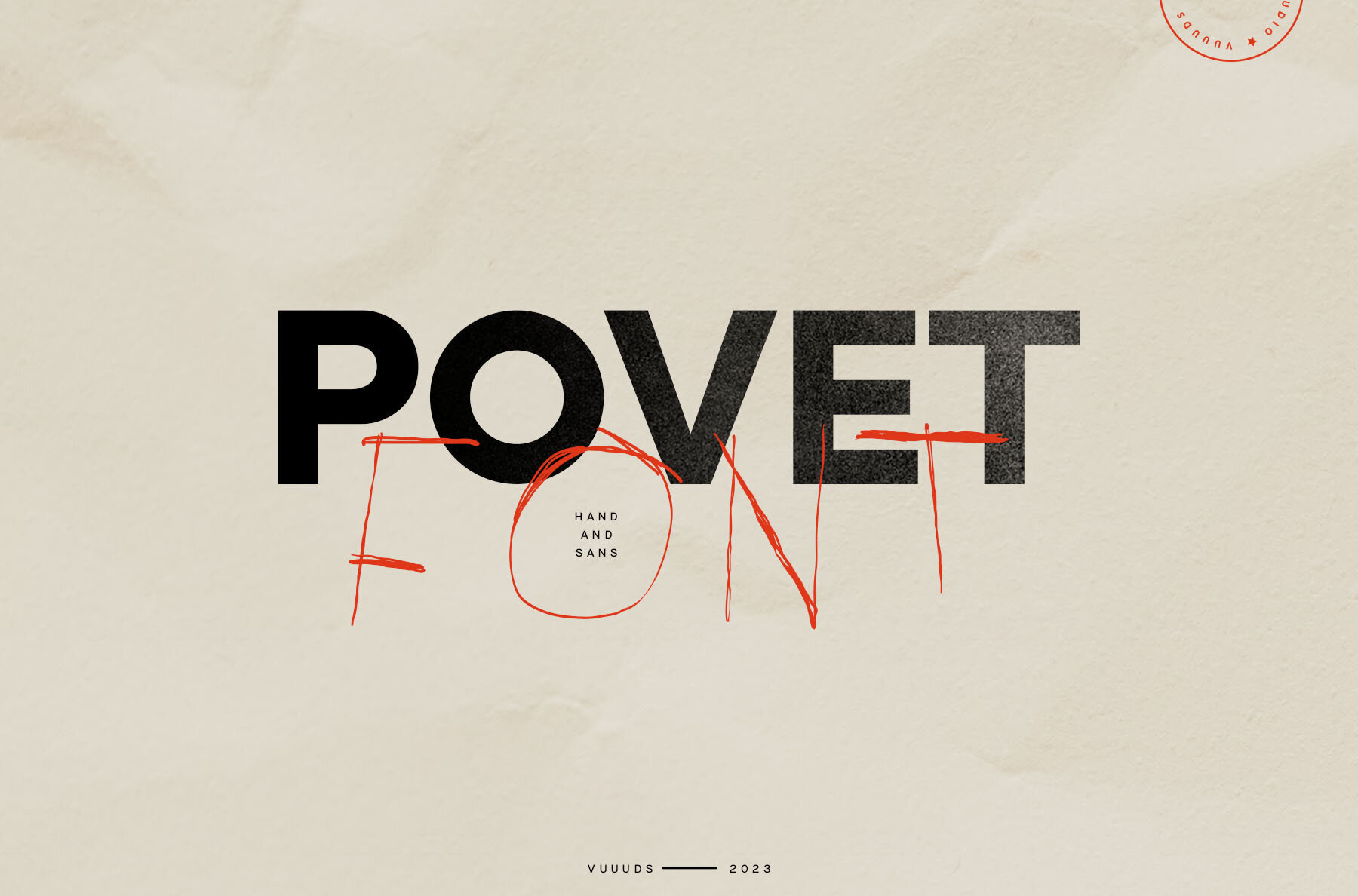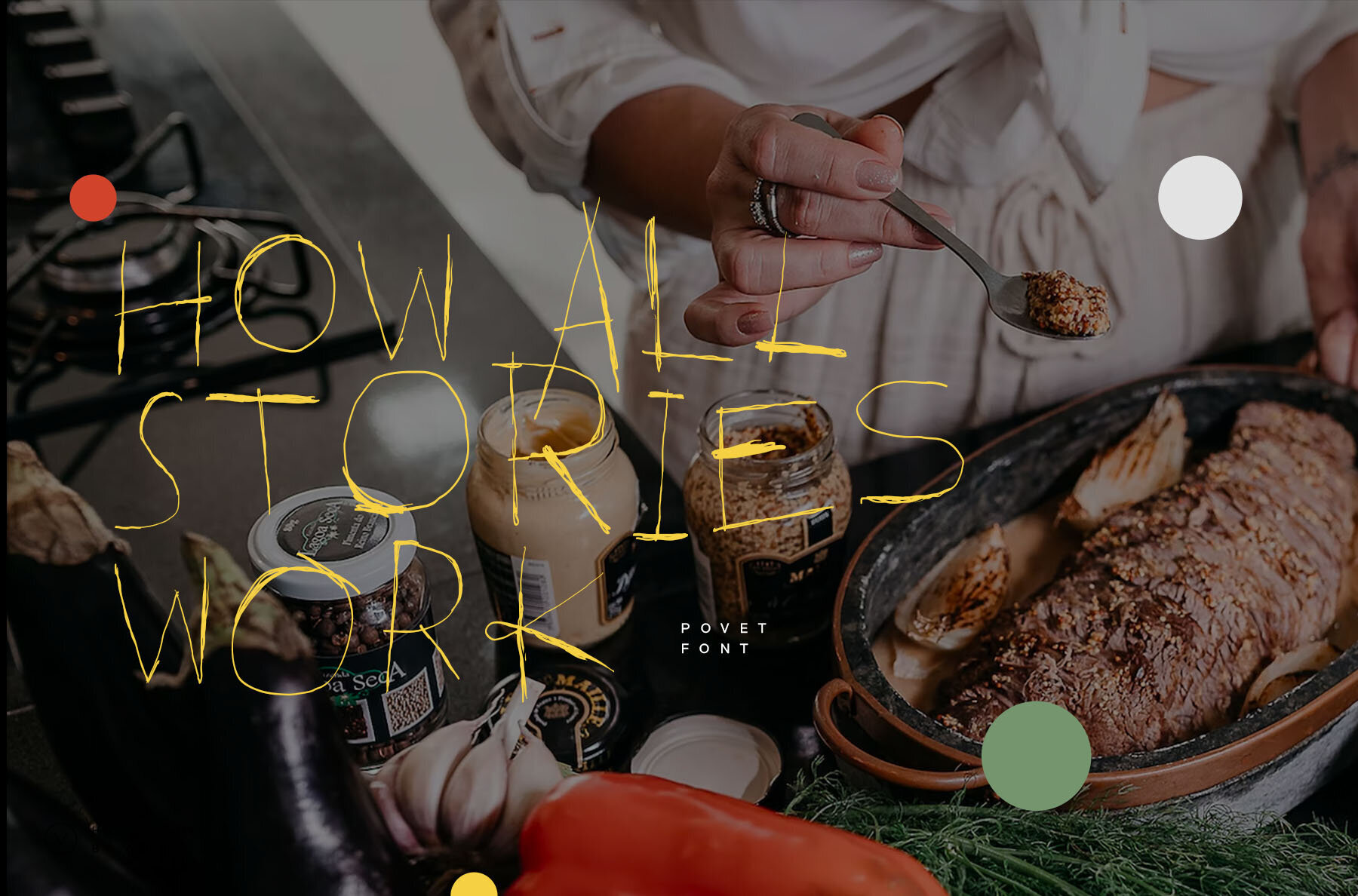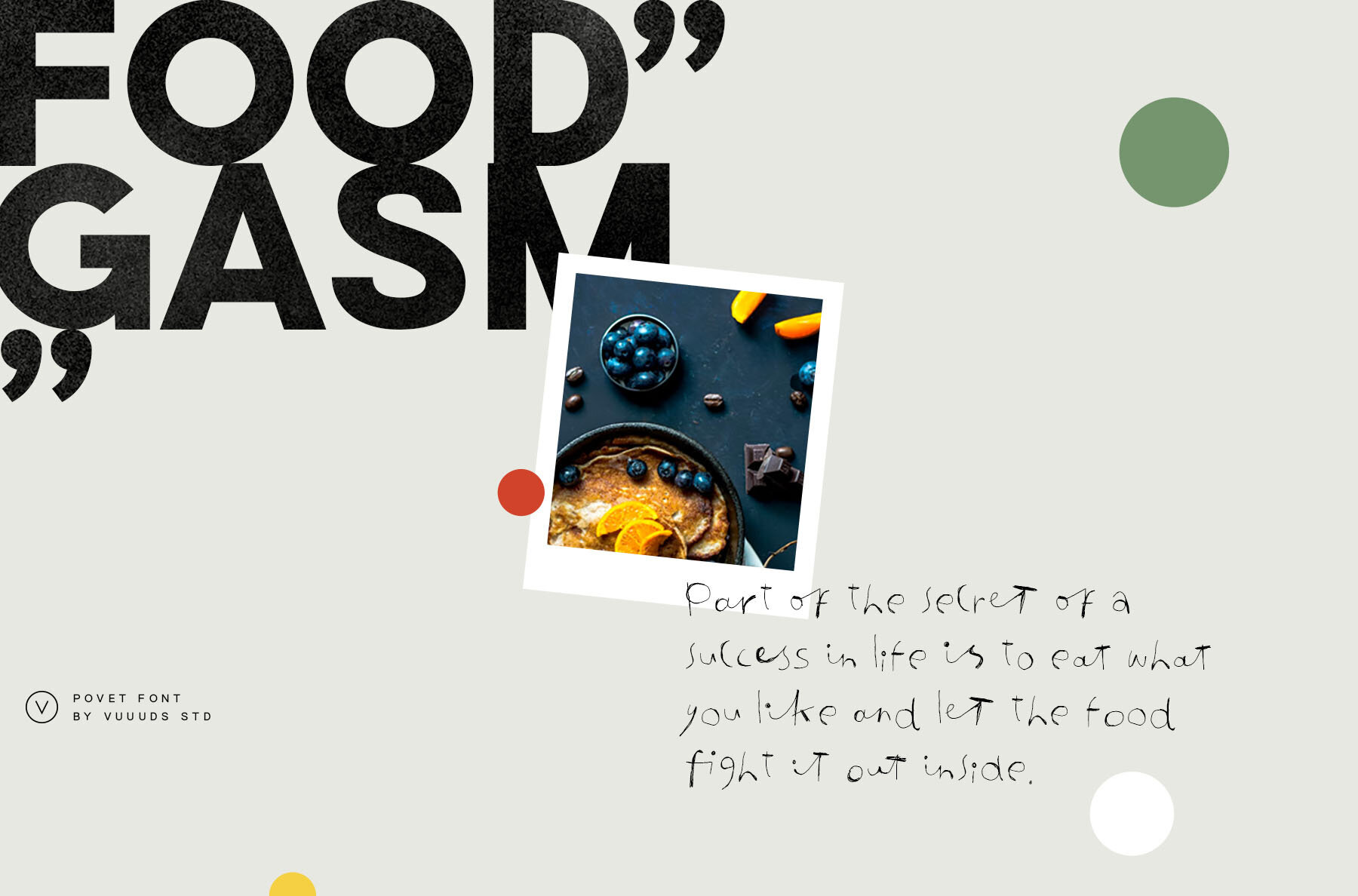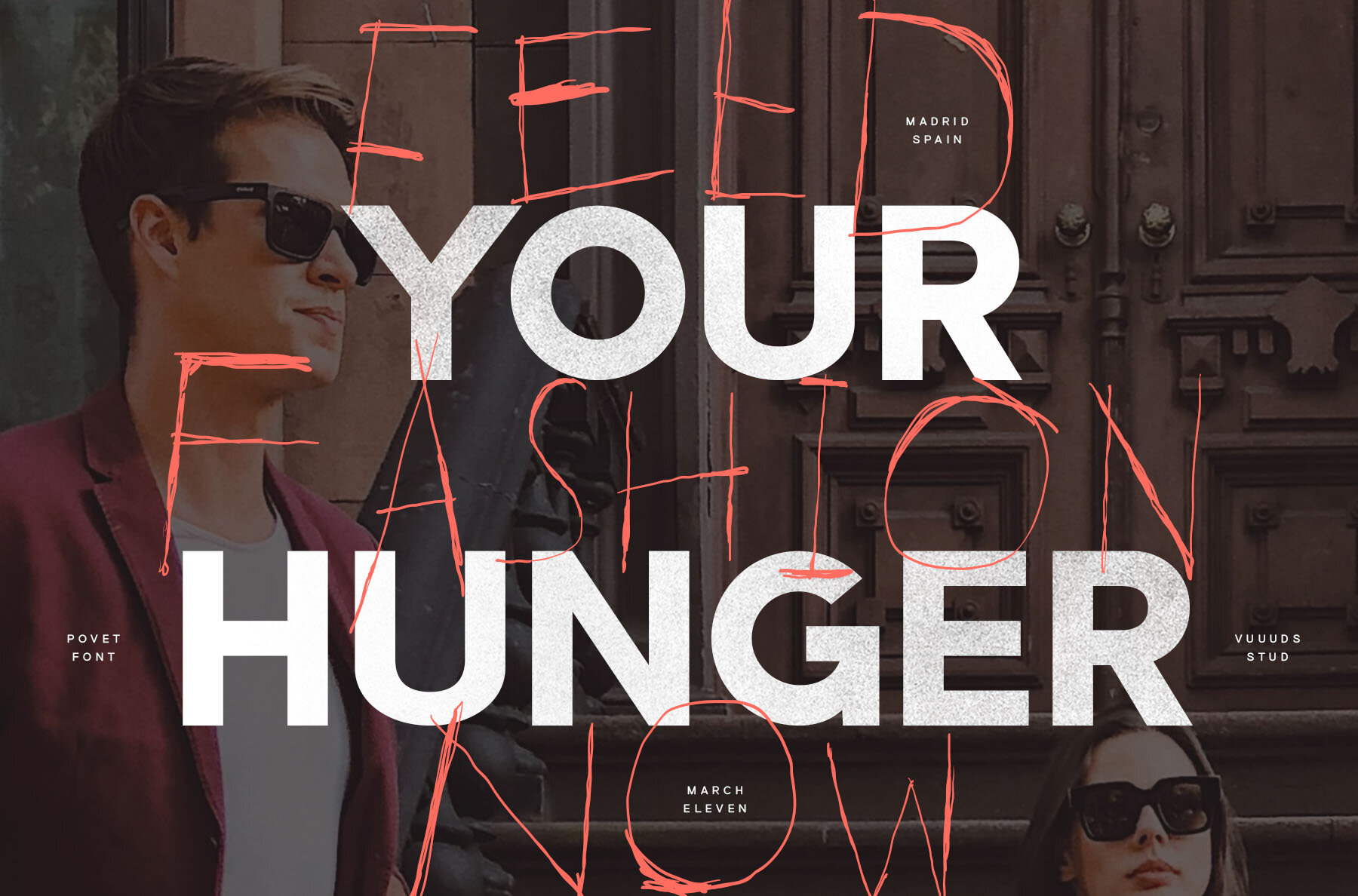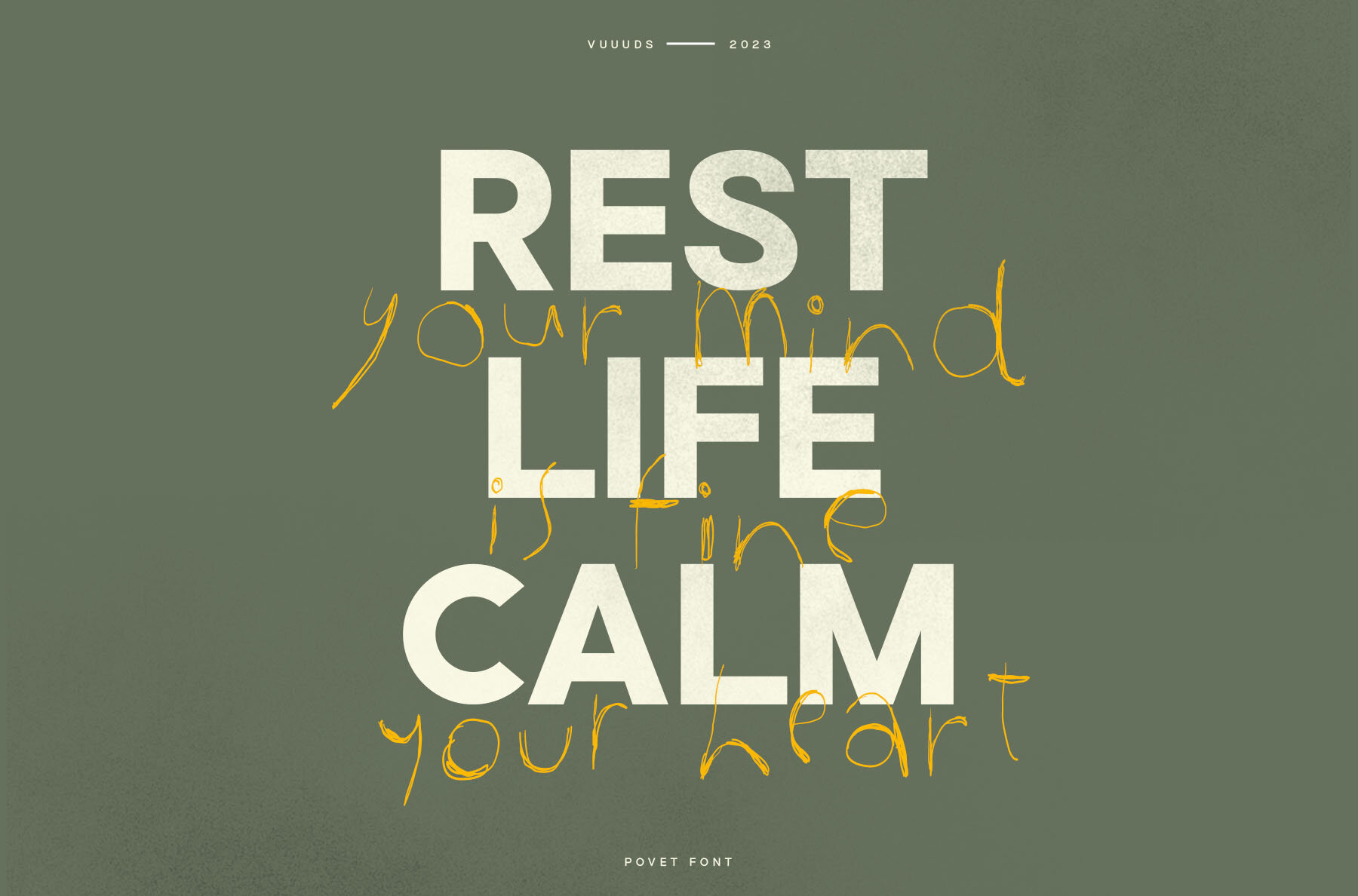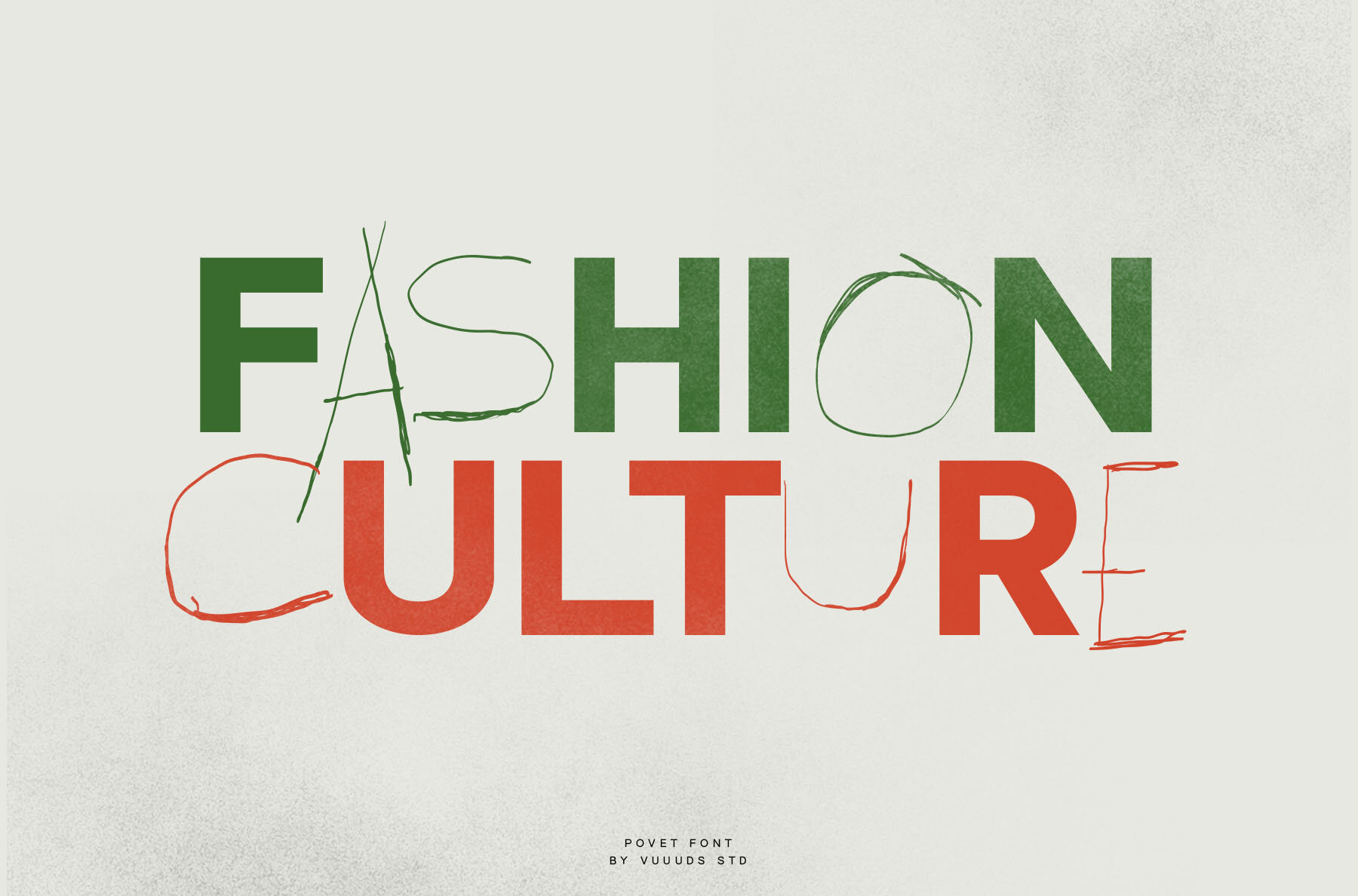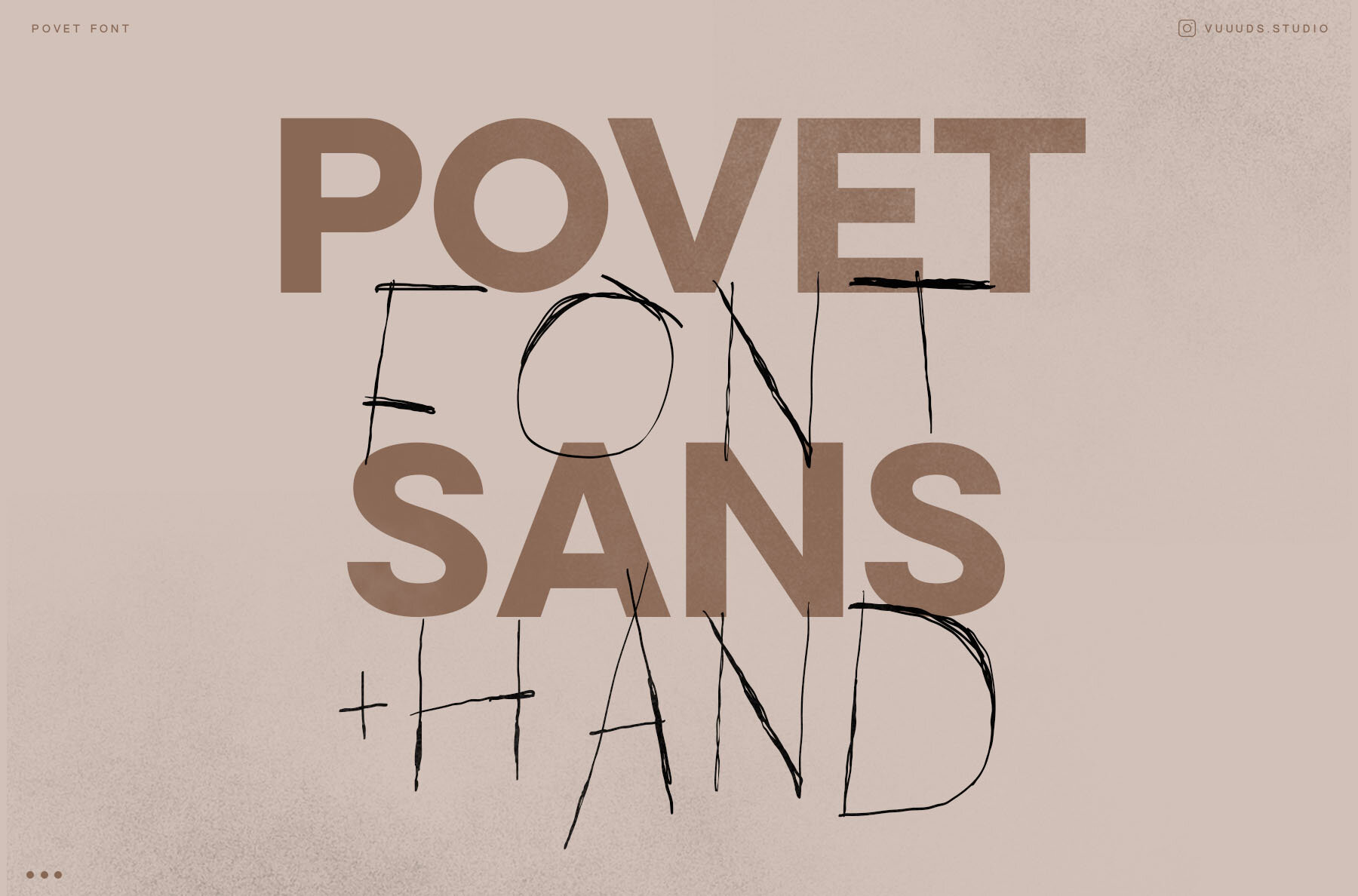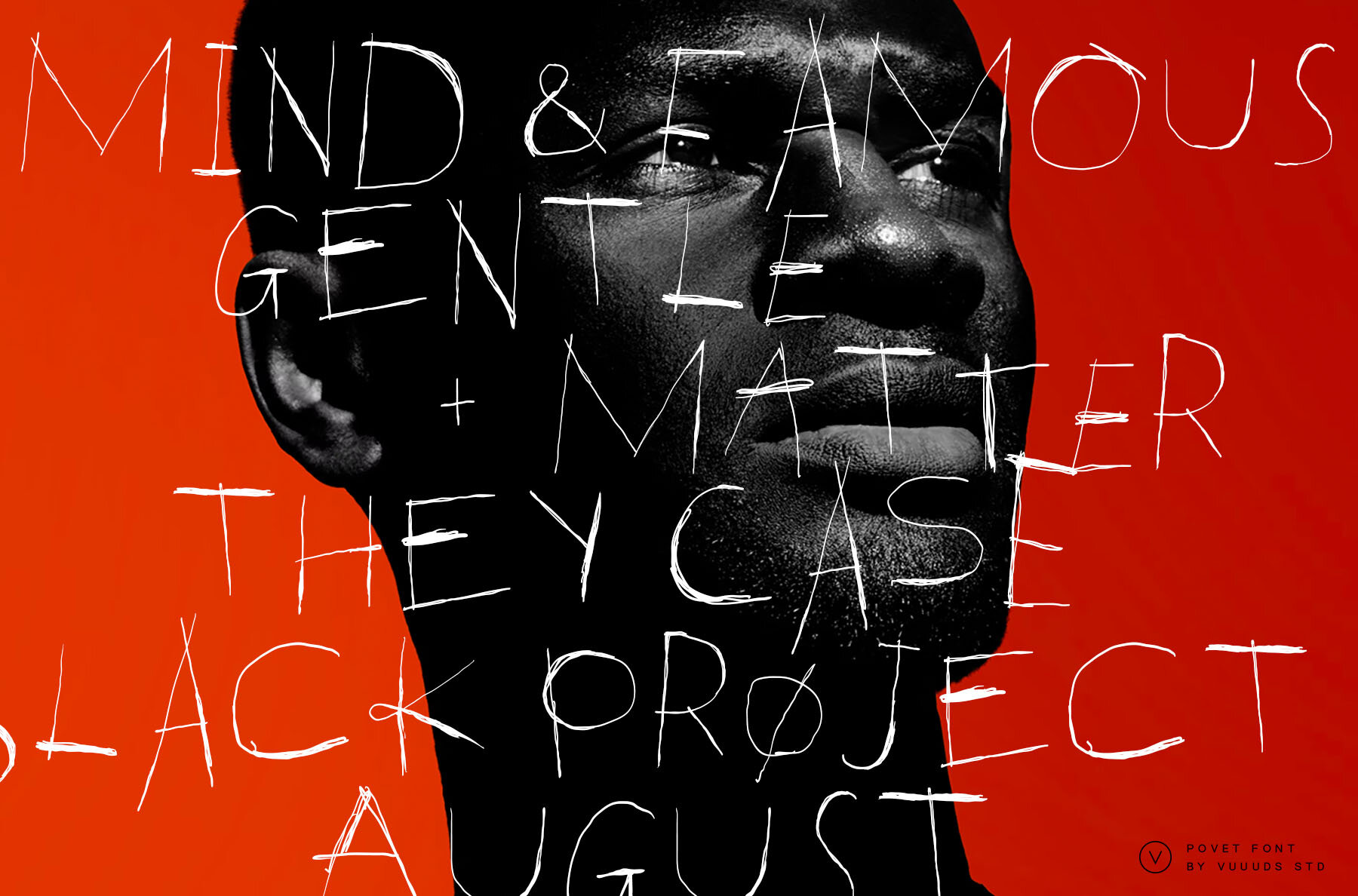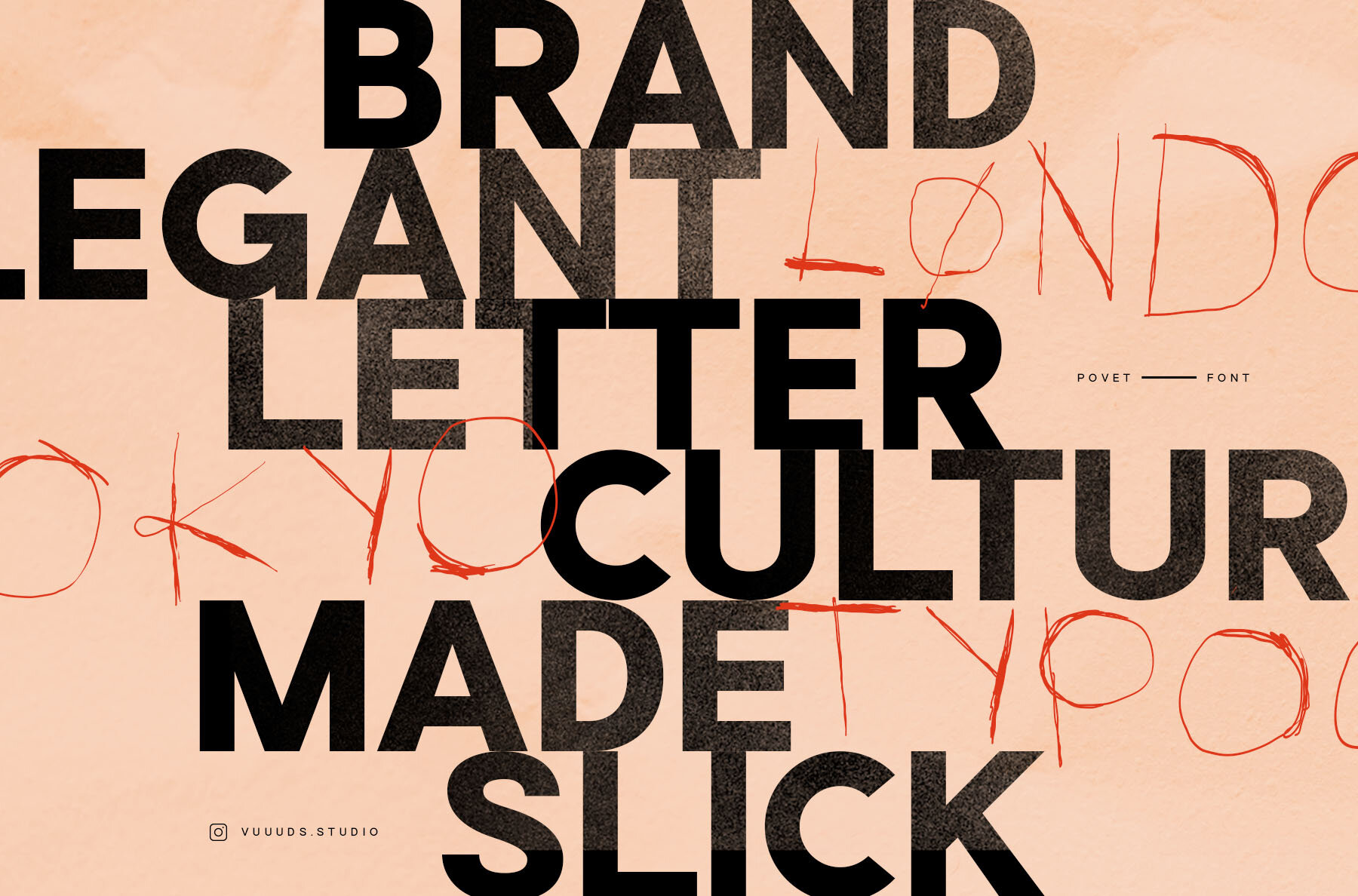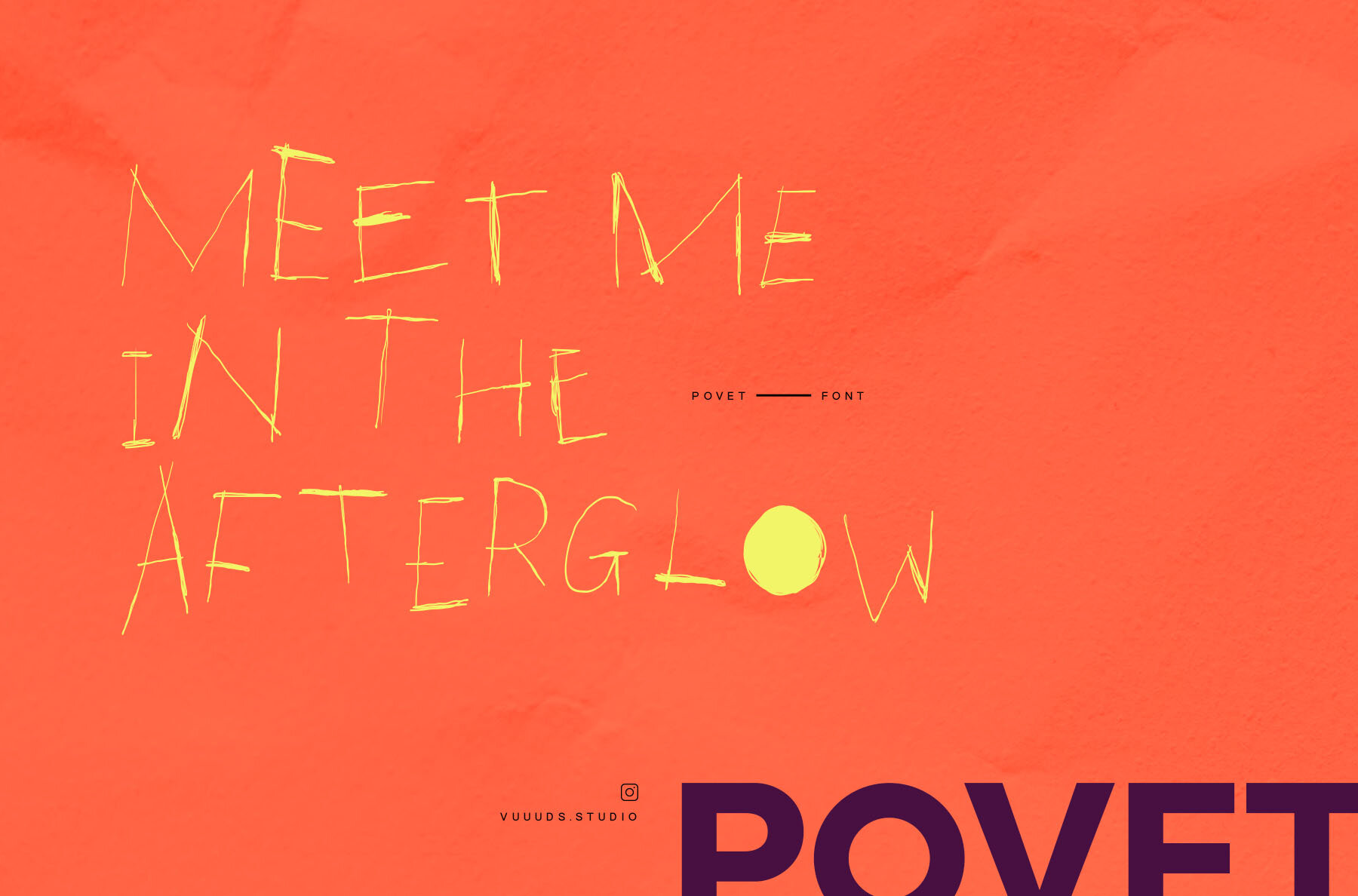
Povet Font
Introducing Povet, a modern experimental font duo that combines Sans and Hand styles, offering a unique and captivating look for your designs. Each letter in Povet has been meticulously crafted to ensure a distinctive appearance. The font also features stunning alternate glyphs, accessible via Font Book for Mac users or Windows Character Map for Windows users. A tutorial link is included in the zip file for your convenience. Povet provides exceptional support for foreign languages, including characters for ÀÁÂÃÄÅÆÇÈÉÊËÌÍÎÏÐÑÒÓÔÕÖØÙÚÛÜÝàáâãäåæçèéêëìíîïðñòóôõöøùúûüýÿ. Enhance your designs with the dynamic and versatile Povet font duo, perfect for creating eye-catching and unique typography.